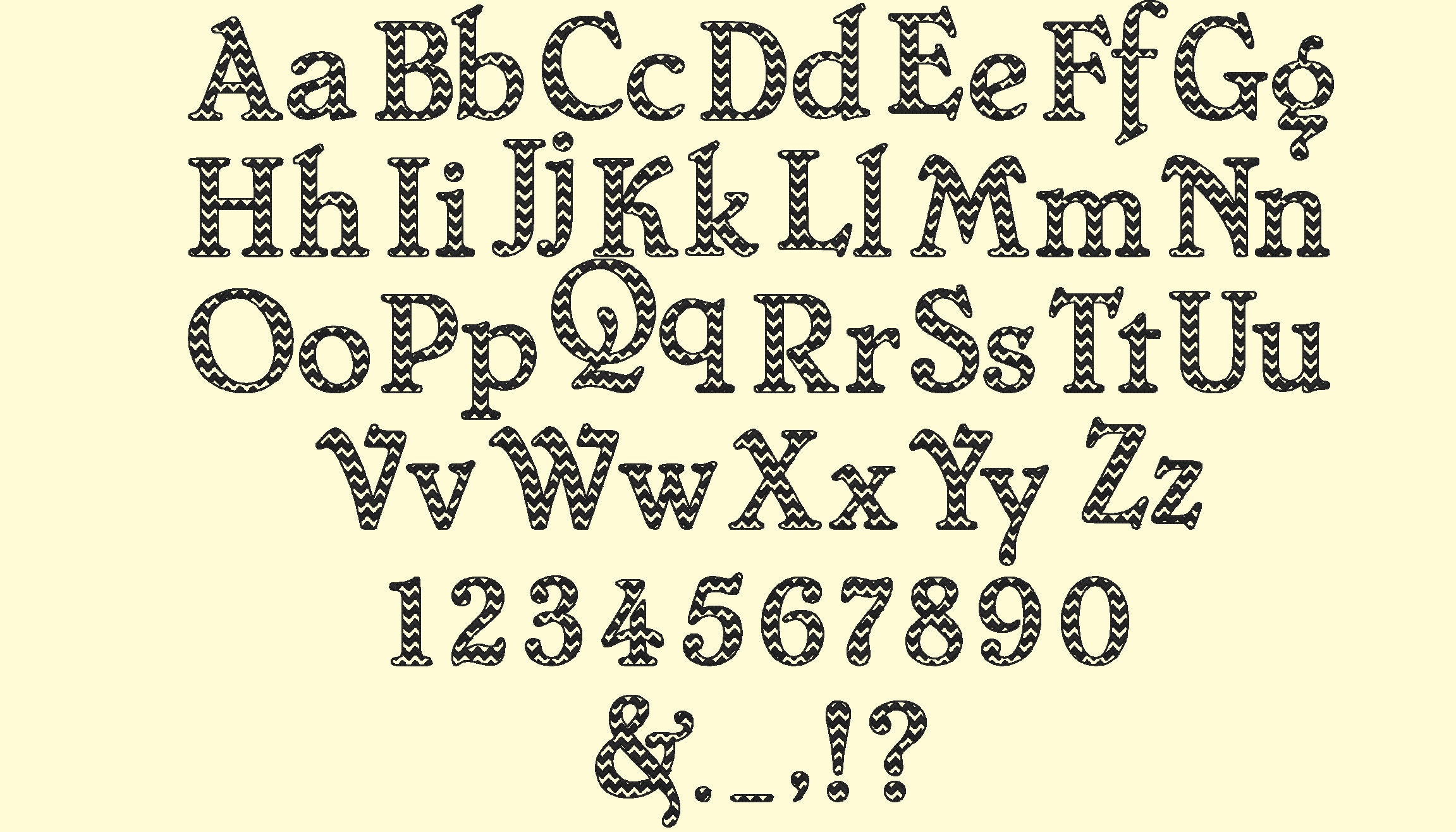
Uppercase and lower case letters, as well numbers and punctuation RIC RAC Font
This is quick stitch designs, they look like like laces, the background fabric look through. Stunning effect. Chevron lines are part of embroidery.